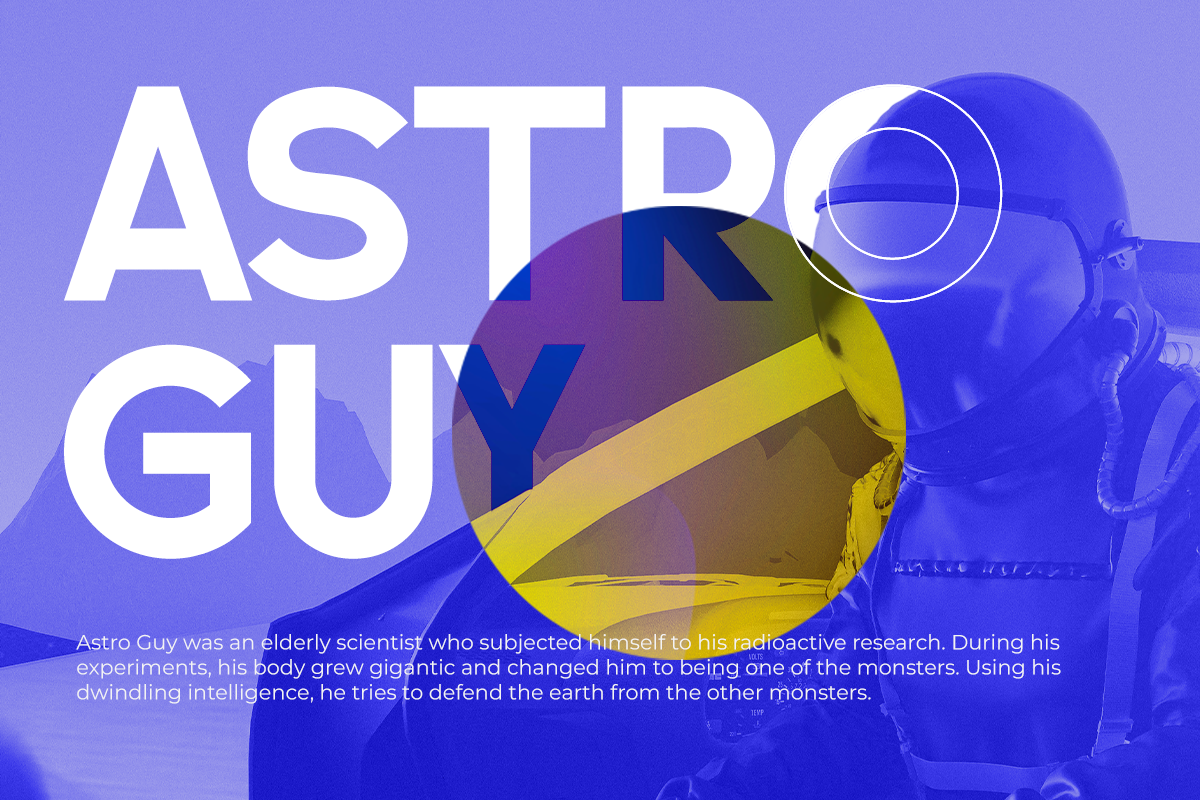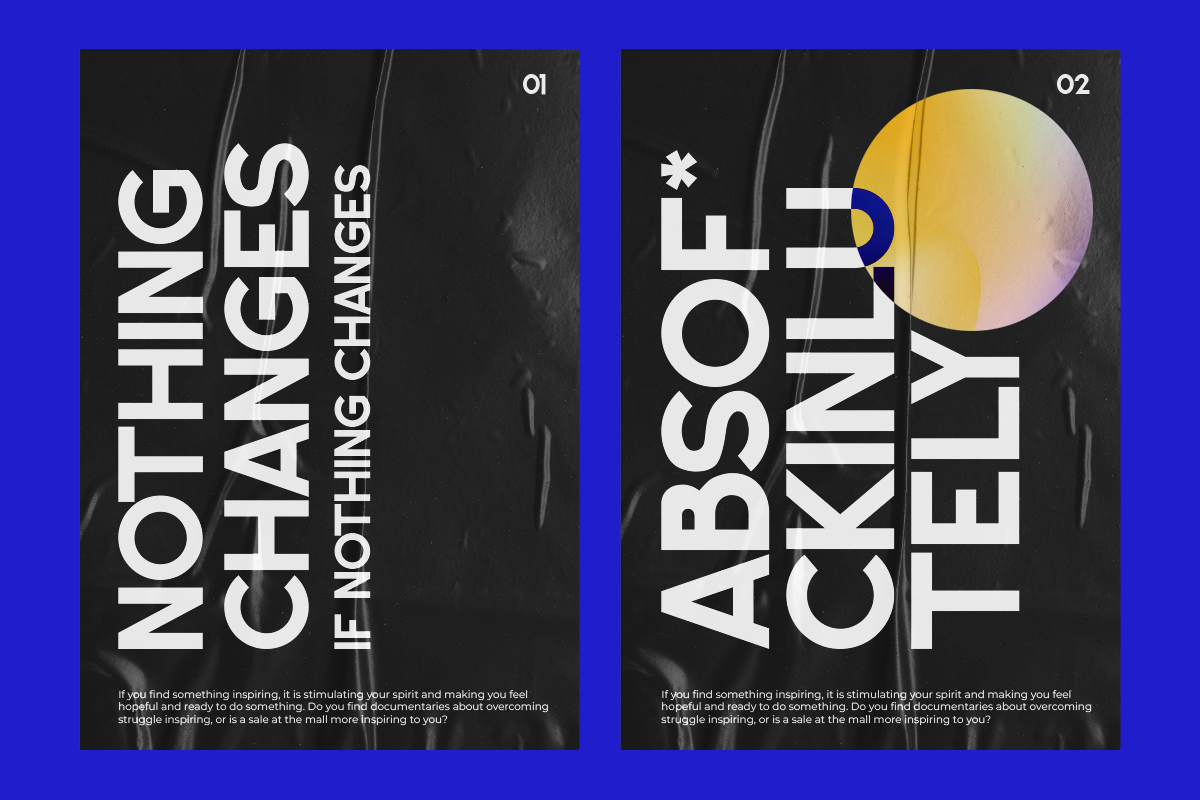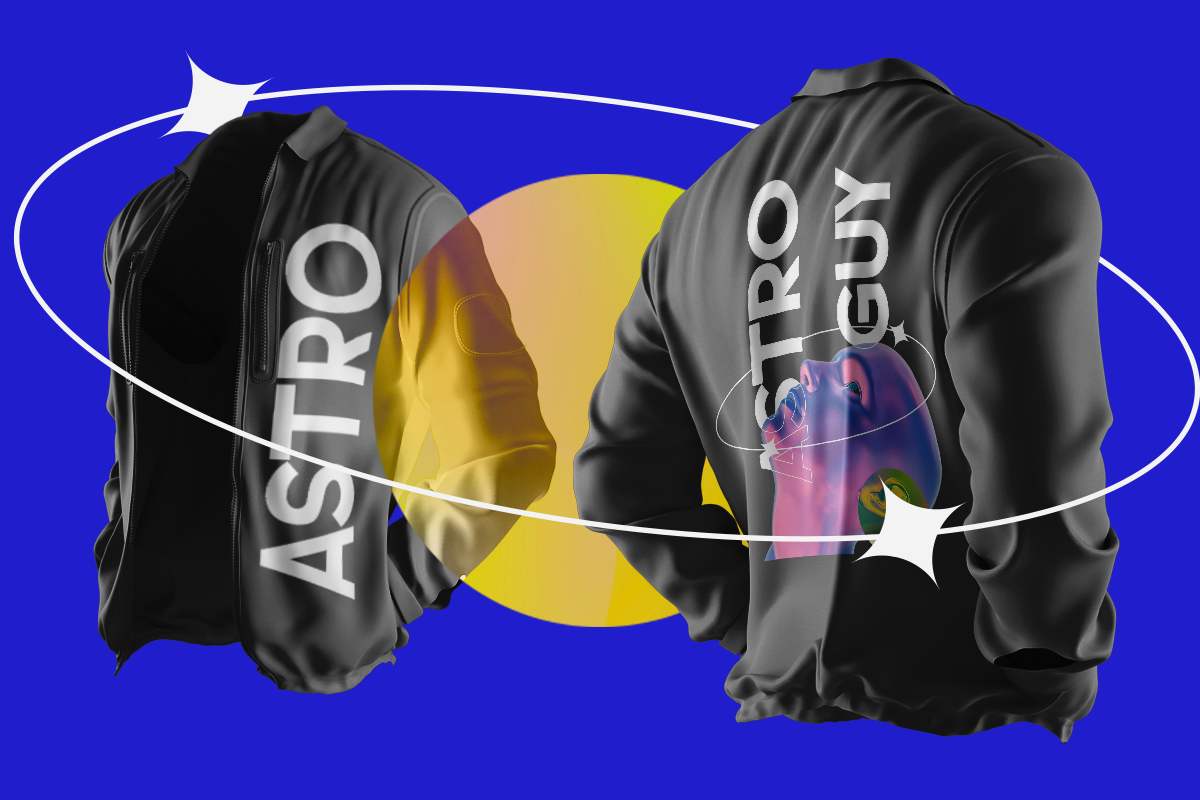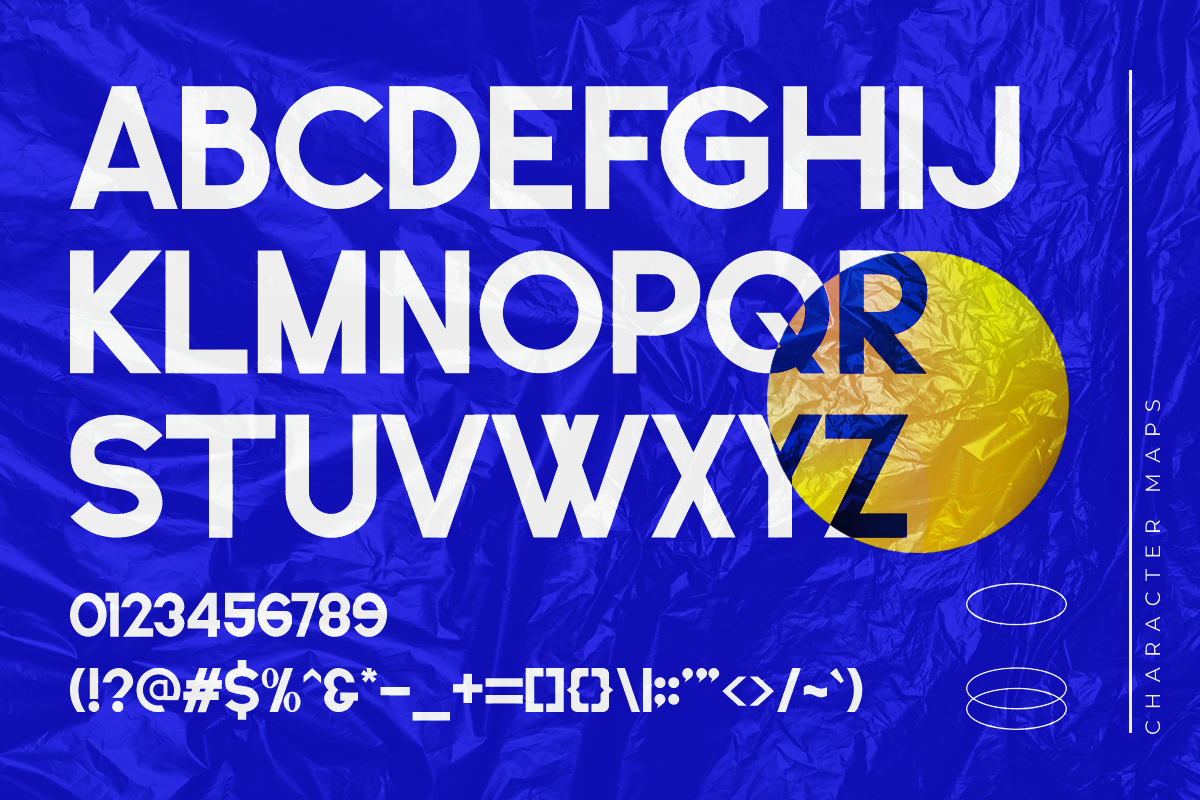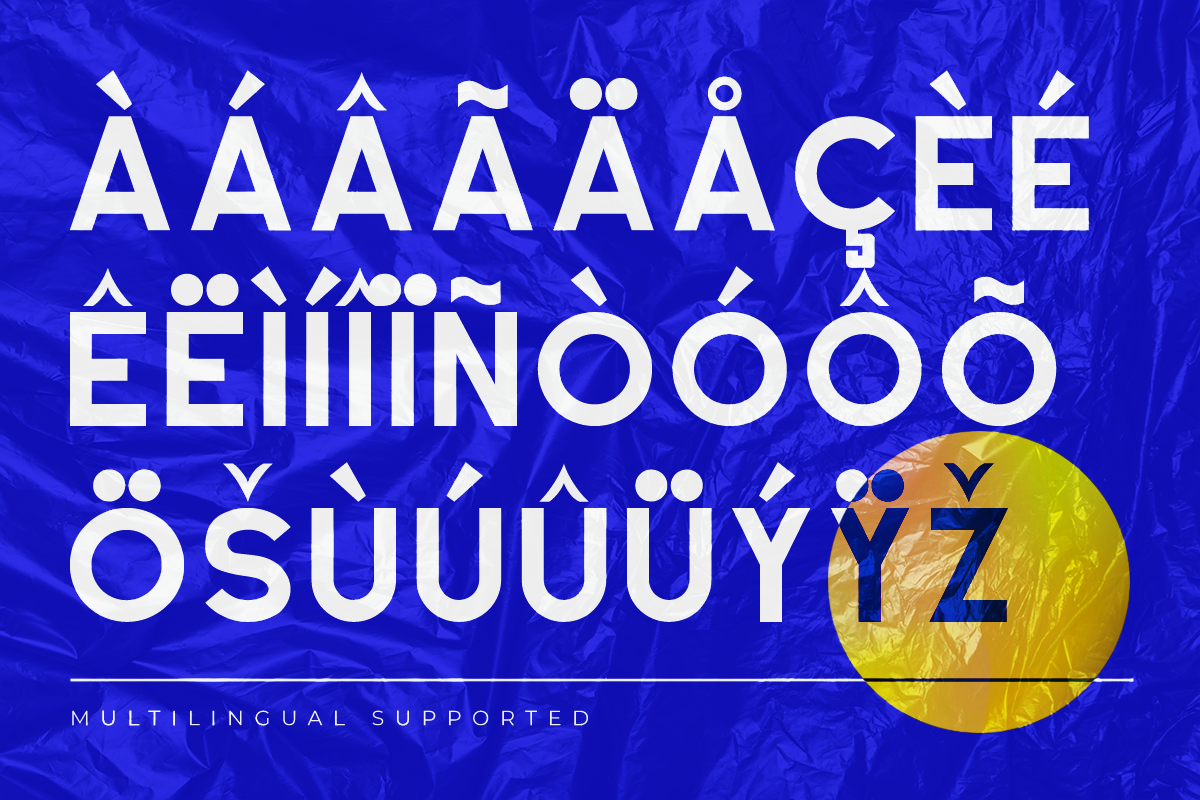
Lemontea Sans Serif Font Lemon Tea font was created to bring fresh and cool vibes to anyone who sees and hears it. This vibe is in line with the characteristics of the letters in Lemon Tea which are very clean without any unnecessary knickknacks in every part. It stands tall and exuberates confidence vibes. People who read various texts using this typeface don't need to give great effort to be able to read and understand them. As the name implies, Lemon Tea is suitable to be used as a brand material for beverage products. It can be set in the bottle or the container and equipped with a fruit image or color that represents the drink's flavor. Not only that, this type of font can be used for writing on the signage. It can be printed in small or large sizes and remains visible whether viewed from near or afar. Therefore, this font will be compatible when used on clothing articles such as; jackets, t-shirts, and trousers. For those who love the simplicity and don't like the crowded design look on their clothes, they will choose clothing with this kind of typeface in them. With the bold and clean forms, the Lemon Tea typeface will look great printed on schools' sports jackets made of parachutes. You can also use them on your gym equipment such as; water bottles, gym shorts, leggings, and gym bags.